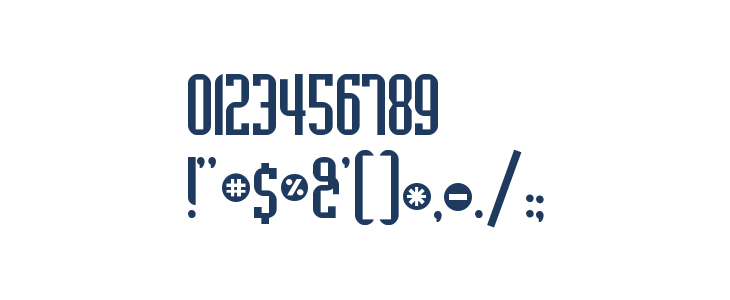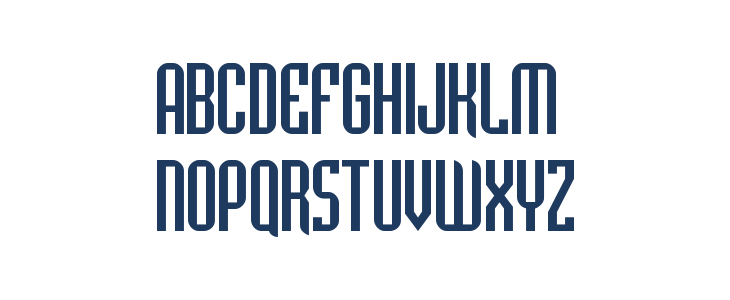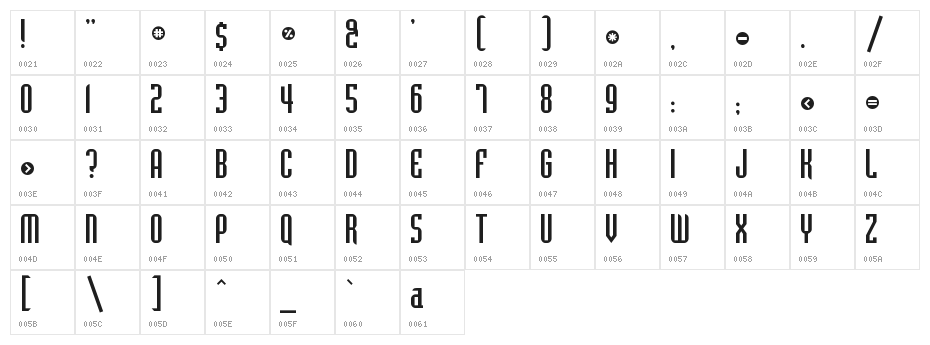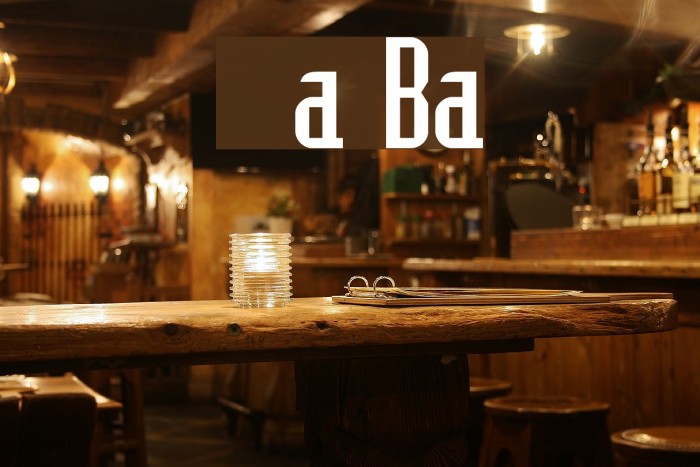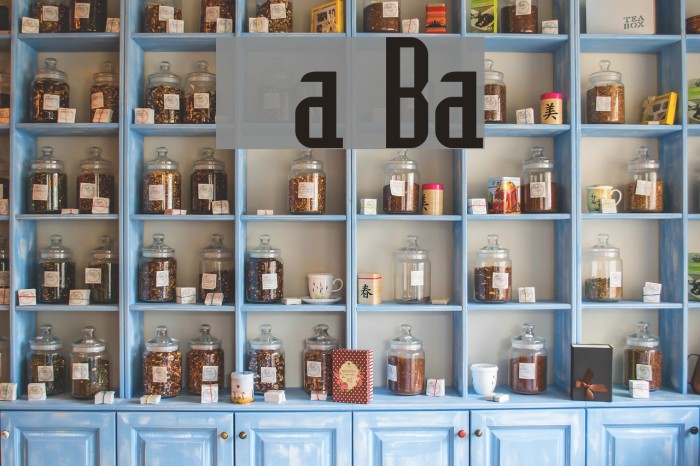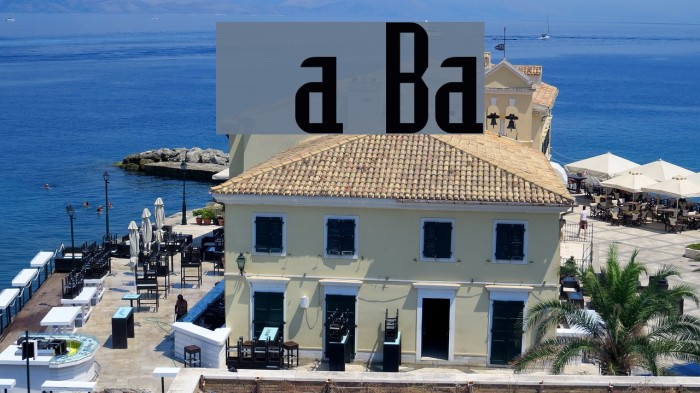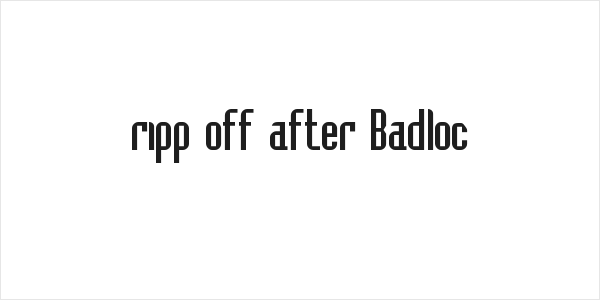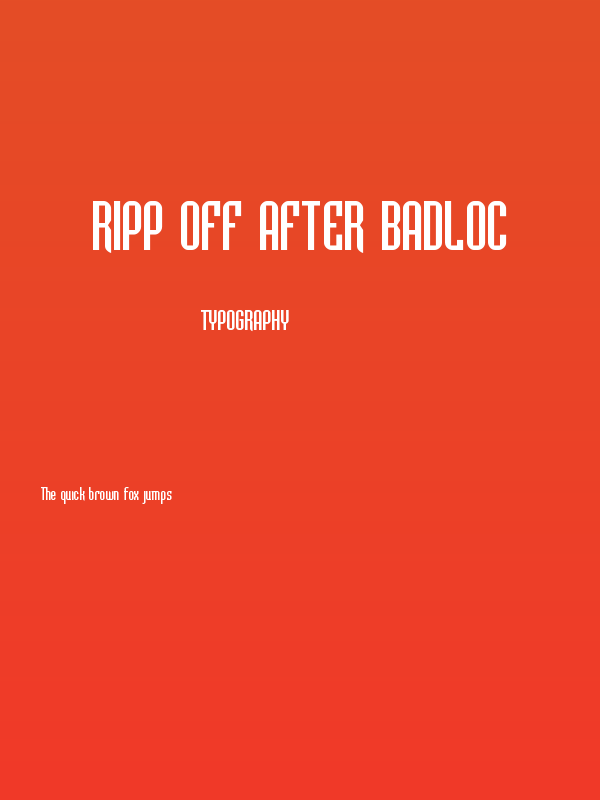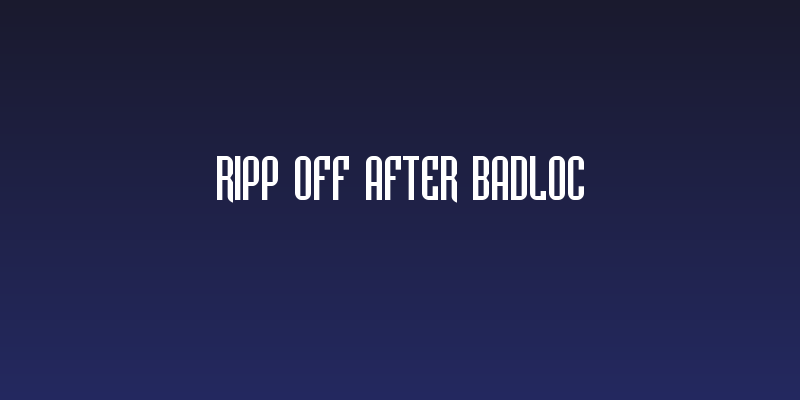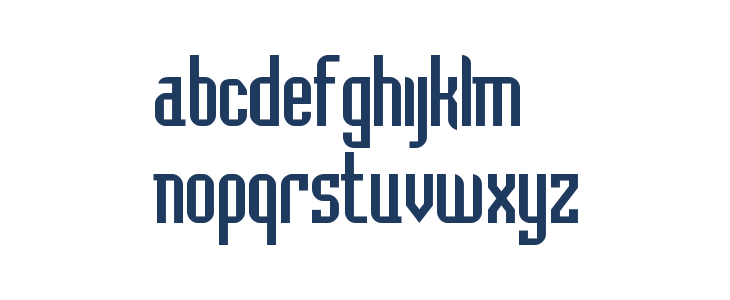
ripp off after Badloc Font
ripp off after Badloc Description
This font features a bold and geometric design with a modern flair. The uppercase letters are tall and narrow, giving a condensed appearance, while the lowercase letters maintain a consistent height that complements the uppercase. The numbers are similarly styled, ensuring uniformity across all characters. The special characters are distinct and easily recognizable, fitting seamlessly with the overall aesthetic. The font's clean lines and sharp angles make it ideal for creating a strong visual impact.